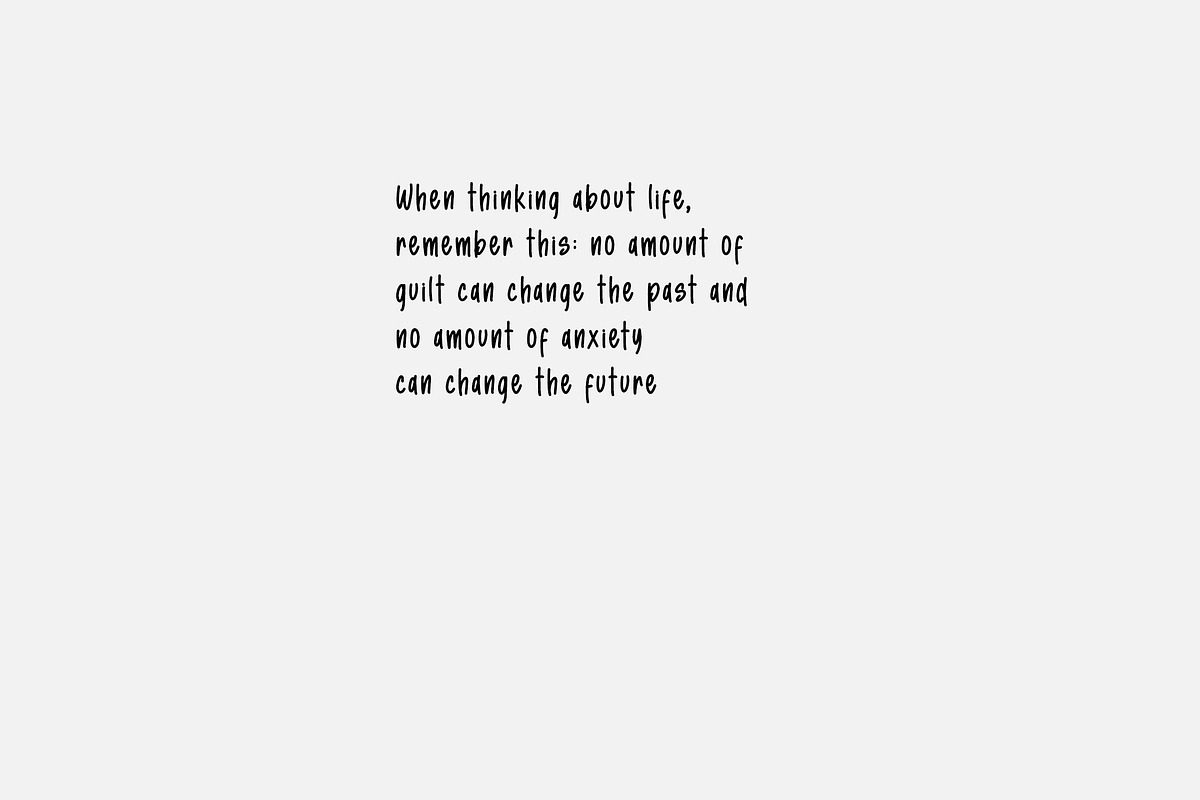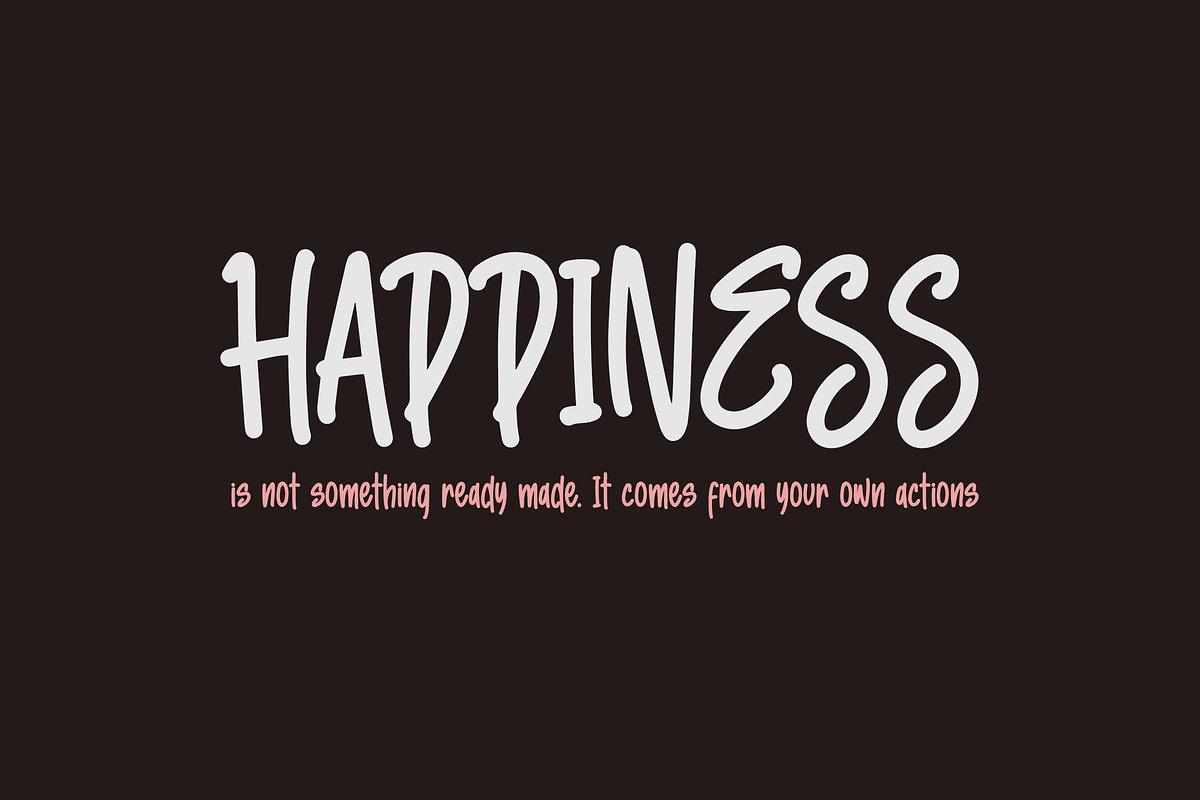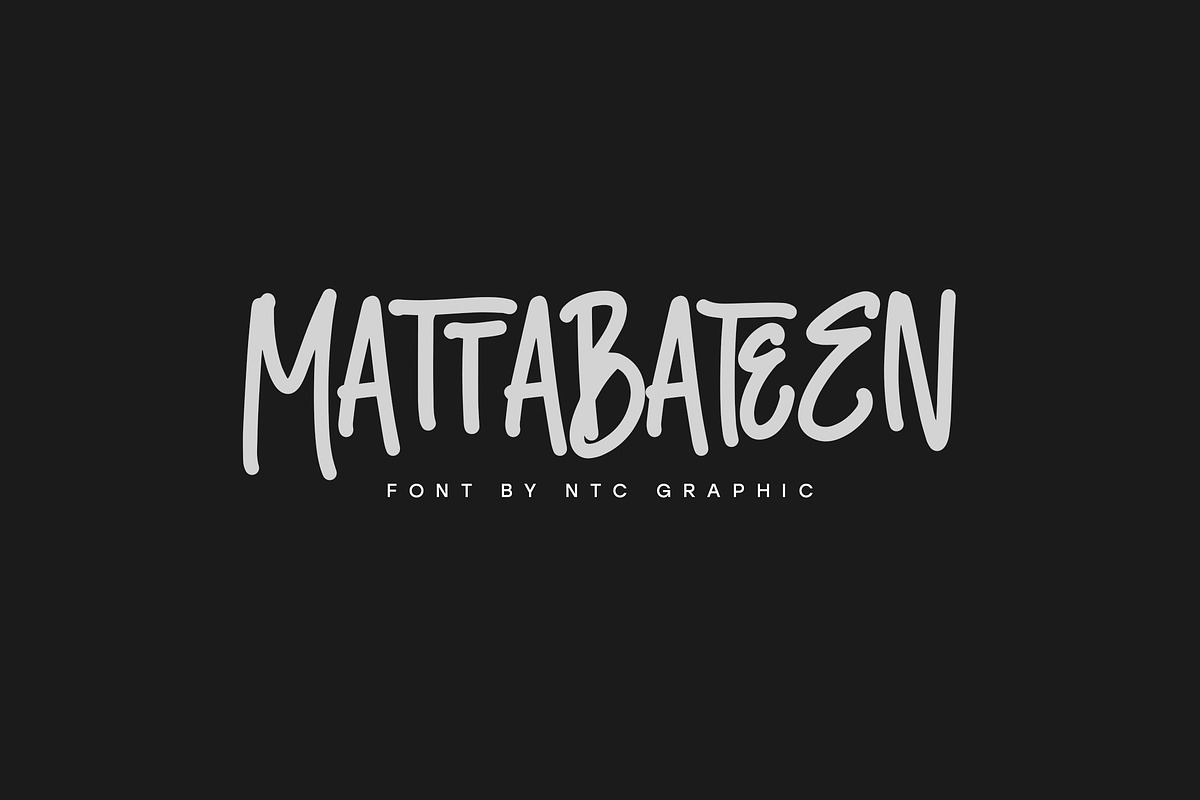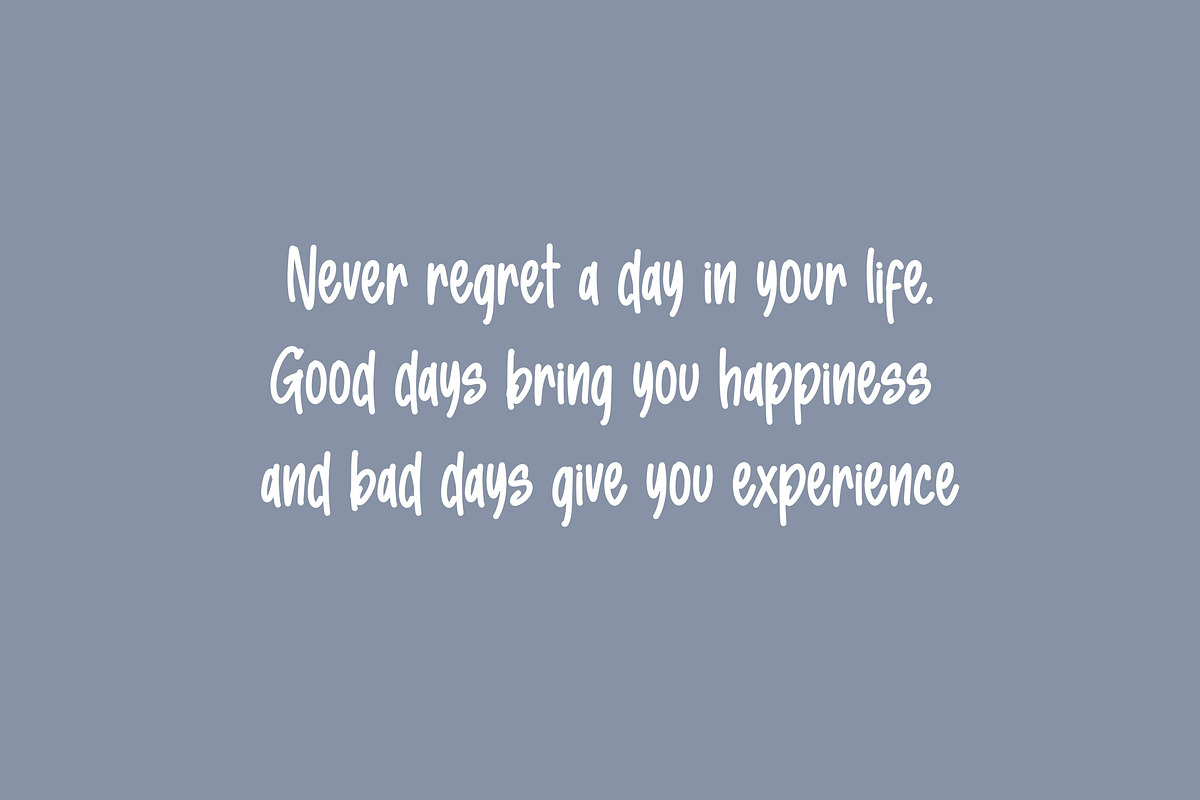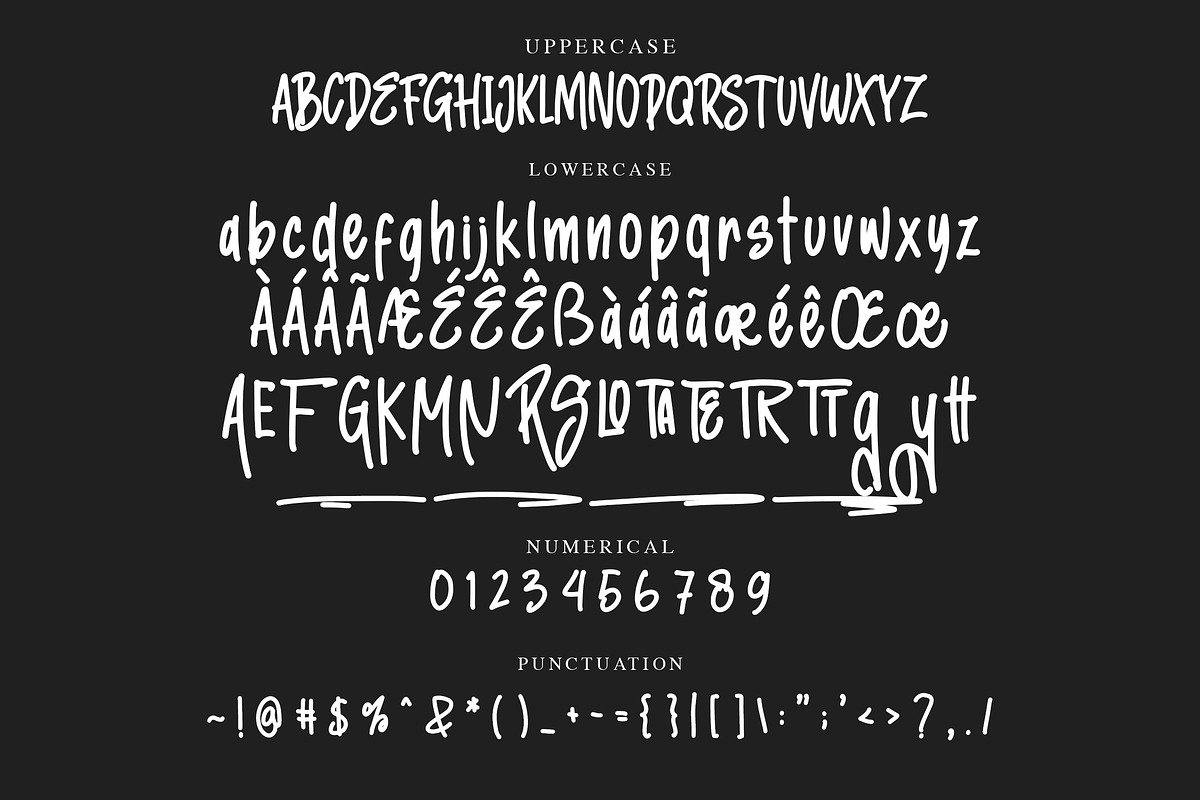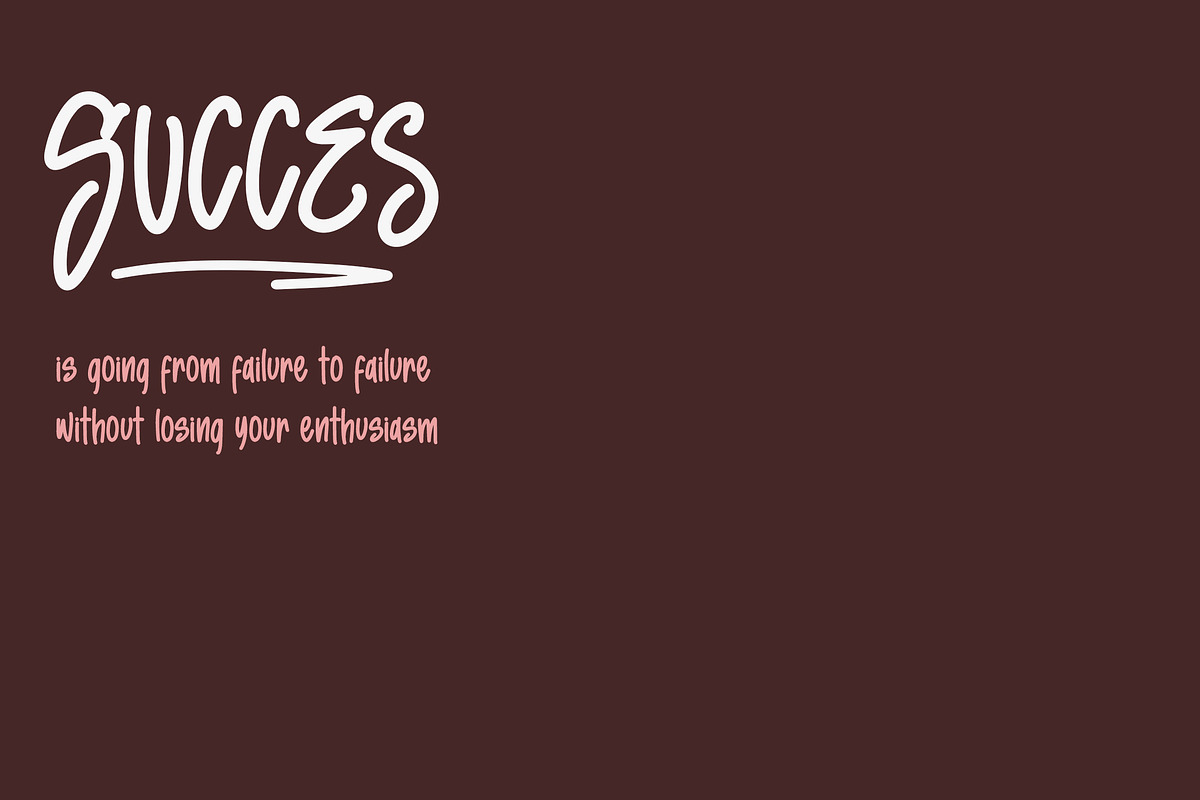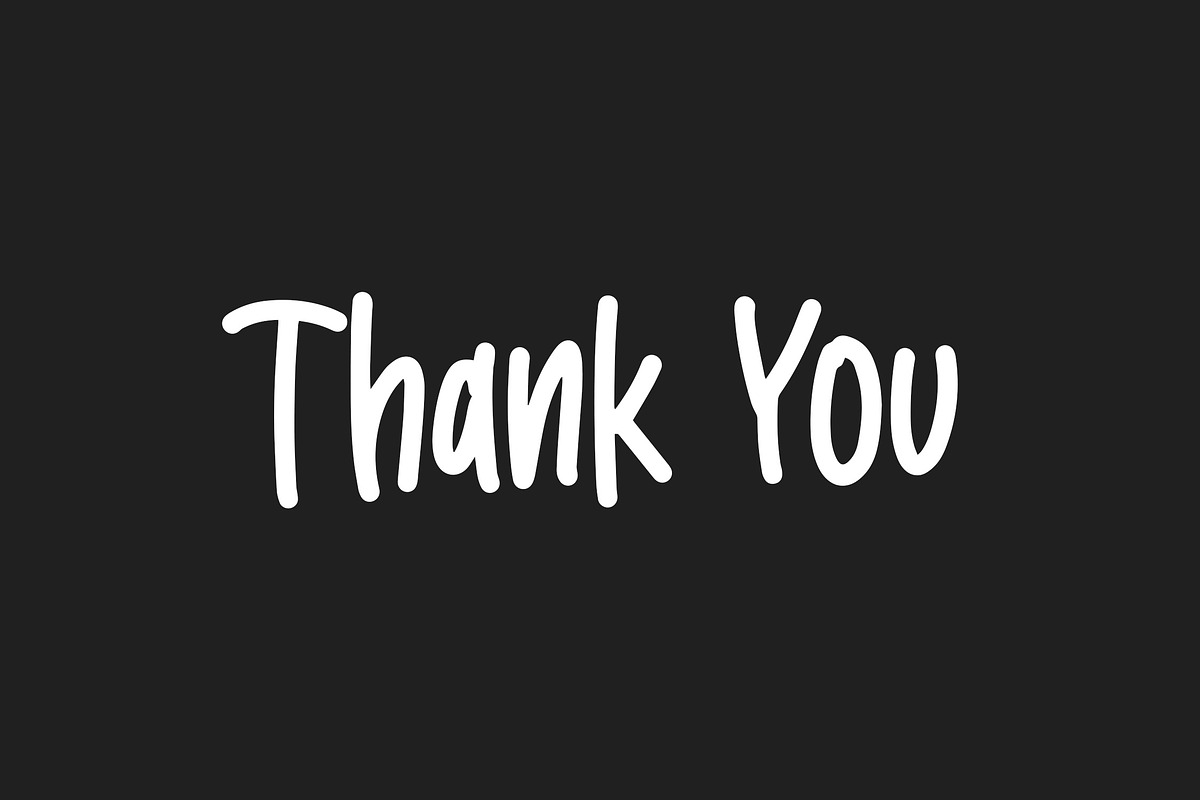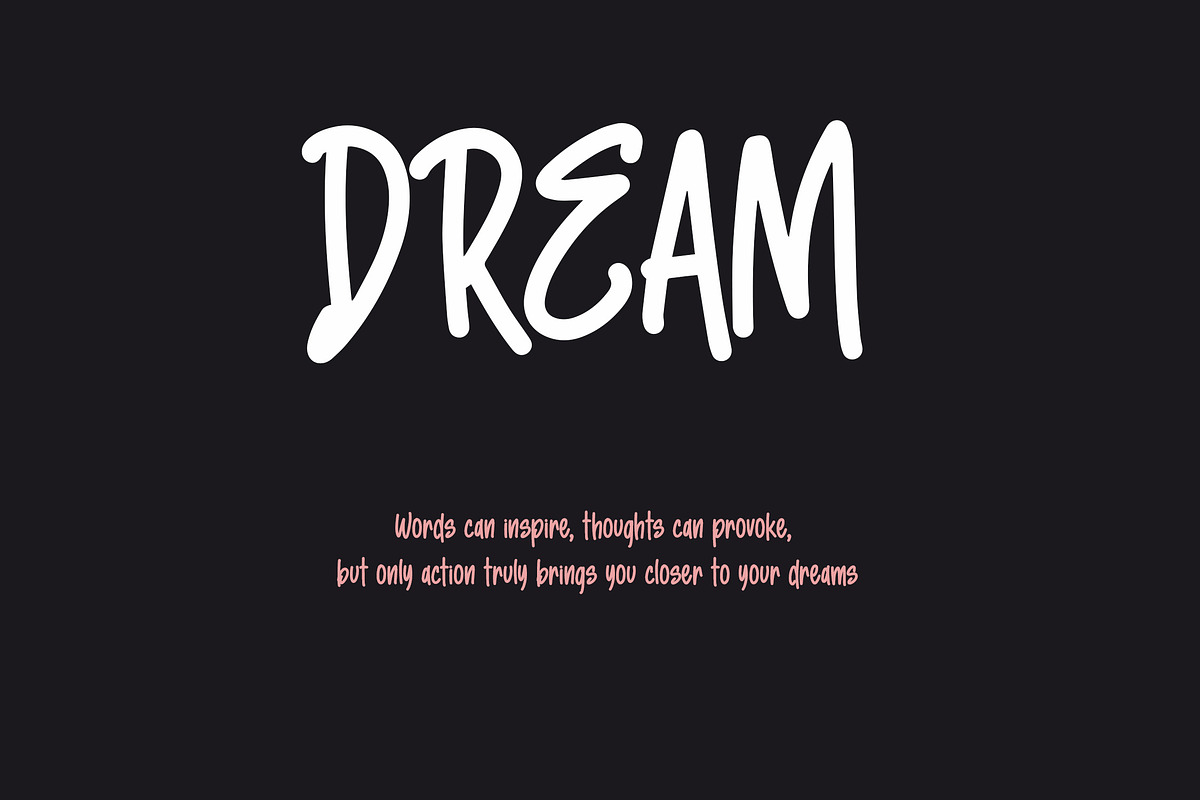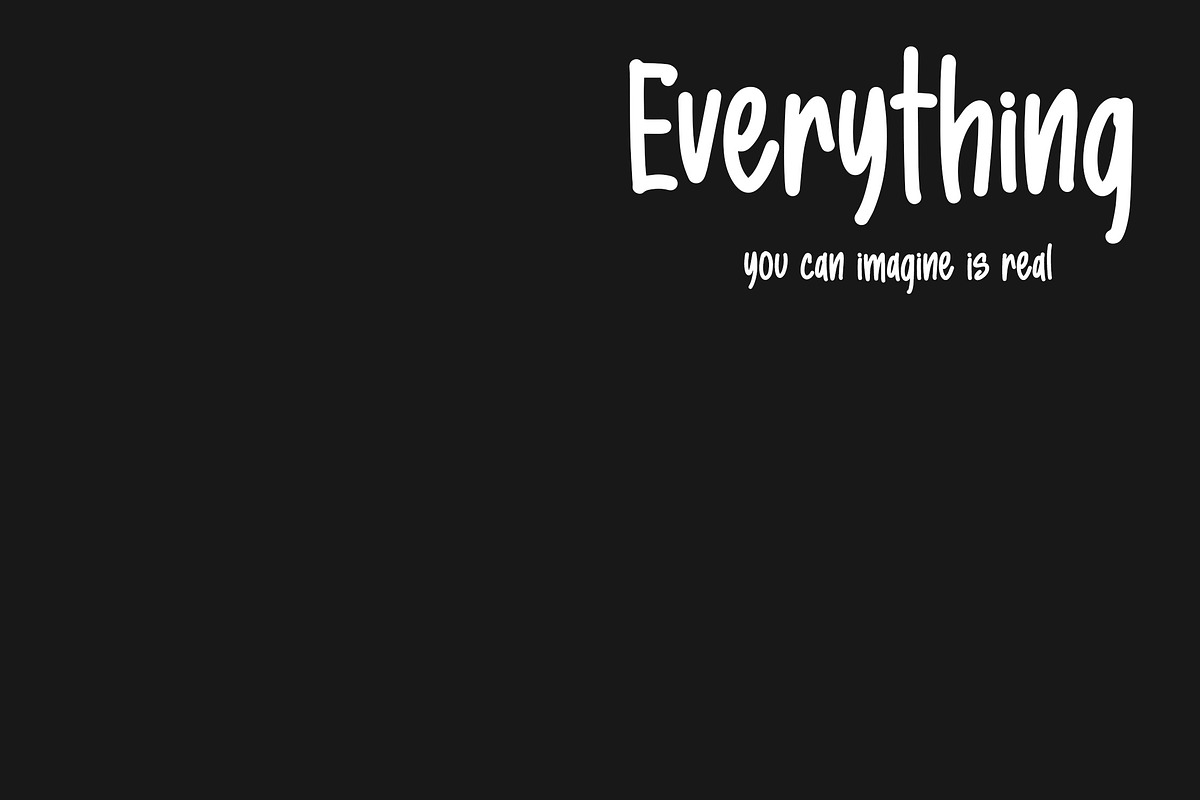
MATTABATEEN Monoline Font
MATTABATEEN is a beautiful brush font with handwritten monoline style. Is a font style that is made with handwritten scratches shapes font characters are very beautiful. Can be applied to support the graphic appearance of the product to be more attractive and unique. This font is very nice for designing magazine previews and covers design, logo designs, shirt designs, and other graphic needs.